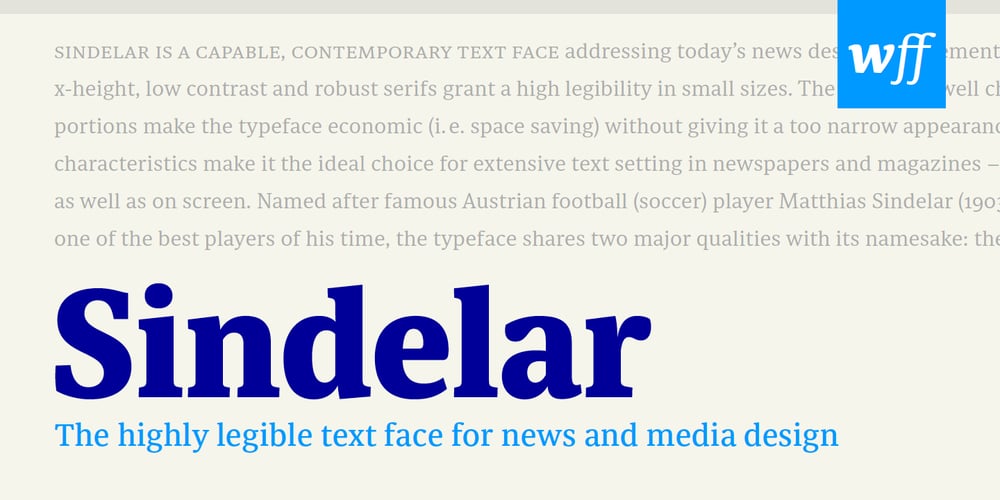
Sindelar Font Family was designed by Stefan Willerstorfer and published by Willerstorfer. Sindelar contains 18 styles and family package options. Please note: Sindelar webfonts are exclusively available at willerstorfer.com Sindelar is a capable, contemporary text face addressing today’s news design requirements. Its large x-height, low contrast and robust serifs grant a high legibility in small sizes. The balanced, well chosen proportions make the typeface economic (i.e. space saving) without giving it a too narrow appearance. These characteristics make it the ideal choice for extensive text setting in newspapers and magazines – on paper and on screen. Named after famous Austrian football (soccer) player Matthias Sindelar (1903–1939), one of the best players of his time, the typeface shares two major qualities with its namesake: their technical brilliance and their way of performing aesthetically to the last detail. The football player’s nickname »Der Papierene« (the Paper-man) elegantly refers to the media too. Although optimised for small sizes, Sindelar’s low contrast and robust serifs give the typeface a strong impact and an unmistakable personality in larger sizes. Sindelar’s calligraphic influences can be noticed in the Italics best. The italic letters are inclined by slightly different angles, respecting the letters’ shapes and proportions and resulting in a balanced, yet vivid appearance. Sindelar comes in 18 styles – nine weights in Roman and Italic each. Each font is equipped with a huge character set of about 980 glyphs and various OpenType features.